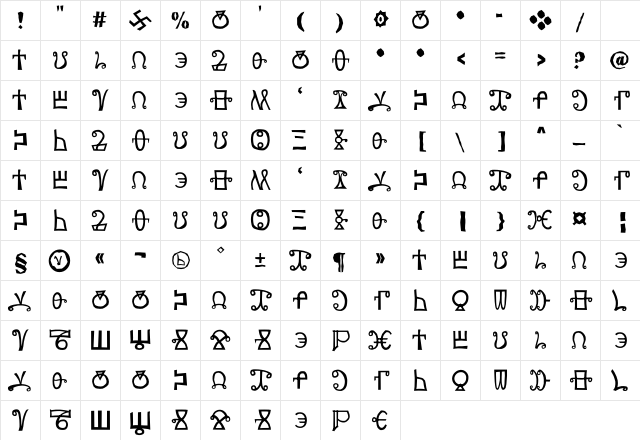
yatsutko_glagolitsa Normal
Design Context for yatsutko_glagolitsa Typeface
yatsutko_glagolitsa takes a measured approach to typography — its balanced proportions and neutral character make it a reliable workhorse for both digital and print work.